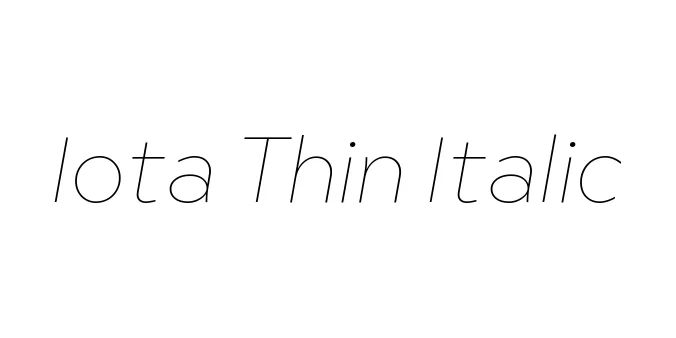
Iota Thin Italic
Designed by Alexander Pravdin
Iota Thin Italic is a sophisticated geometric sans-serif typeface that exemplifies modern minimalist design. Defined by its exceptionally slender stroke weight and precise mathematical proportions, this font offers a clean and futuristic aesthetic. The italicized slant introduces a graceful sense of momentum, making it highly effective for high-fashion editorial layouts and contemporary digital branding where a delicate yet firm presence is required.
The typeface belongs to a larger family designed for maximum clarity and elegance. Because of its thin profile, it performs exceptionally well in large-scale display use, such as titles and pull quotes, where its structural beauty can be fully appreciated without the visual weight of traditional bold faces. It is a favorite among designers who prioritize whitespace and a sleek, unobtrusive typographic voice in their visual communications.
Iota Thin Italic Best Uses
Sophisticated magazine headlines and stylish pull quotes.
Minimalist logos and visual identity for high-end products.
Hero sections for tech startups and minimalist portfolio websites.
Subtle overlays and captions for lookbooks.